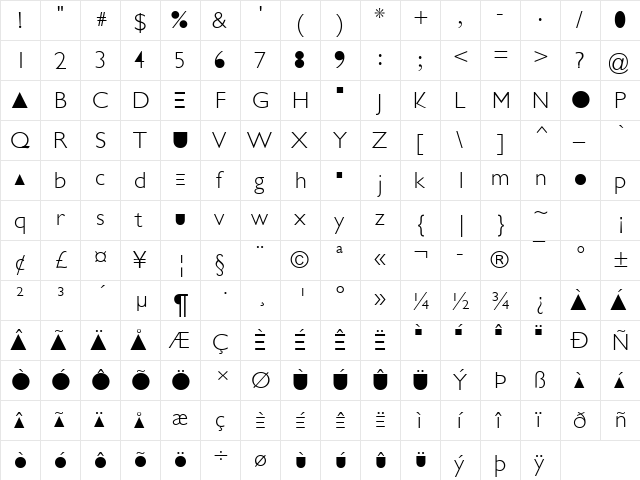
Futurism Light
| Foundry | Stefano Mazzari |
| Designer | Stefano Mazzari |
Design Context for Futurism Typeface
Futurism channels digital-age aesthetics through its sharp, structured letterforms — ideal for brands that want to signal innovation. The delicate stroke weight brings airiness and refinement to layouts.
Pro Tip: Use Futurism in combination with a neutral sans for body text. Let it define the brand voice in headlines while keeping reading comfortable elsewhere.